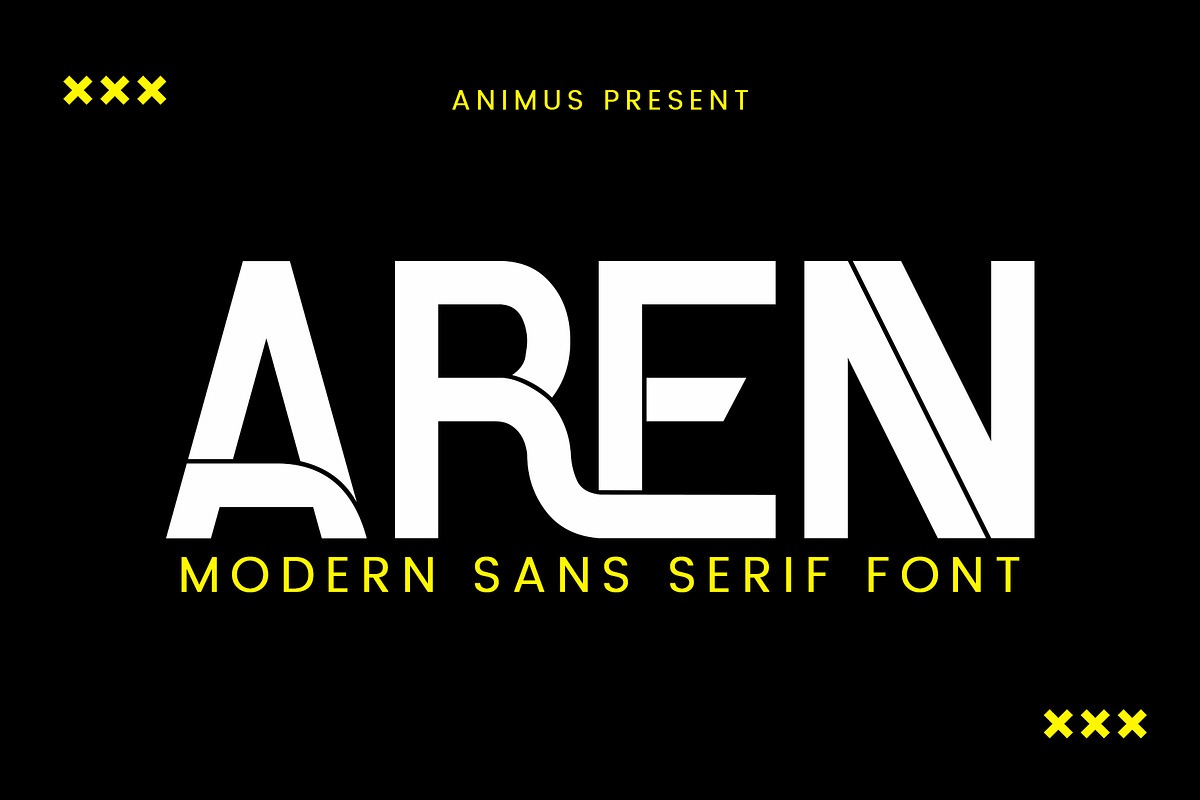
Arenn Font
Arenn Font is a distinctive and expressive font crafted to bring personality, structure, and creative energy into your projects. Arenn Modern Sans Serif Font is a font designed with a modern and minimalist style. It’s perfect for various design needs, such as logos , brochures, videos, advertising branding, posters, invitations, and More.